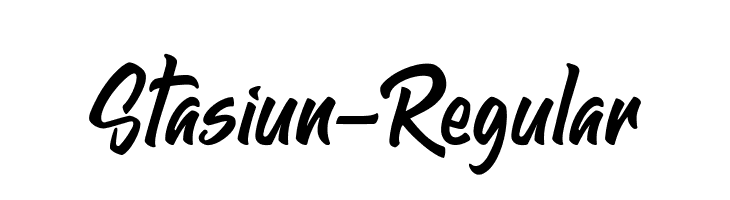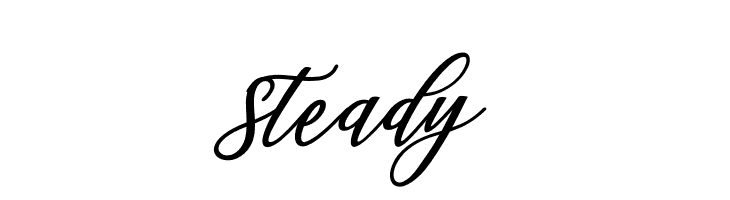
A flowing, elegant cursive font with smooth, continuous strokes.
A bold, playful script font with flowing, cursive letters and a whimsical aesthetic.
A bold, modern script font with dynamic, flowing strokes.
A playful and flowing script font with elegant curves and continuous strokes.
A sophisticated, elegant handwritten script with fluid, connected letters.
A whimsical, playful script font with flowing, interconnected letters.
A flowing, cursive font with an elegant and sophisticated style.
A cursive, handwritten font with elegant loops and swashes.
A playful, bold handwritten font with rounded, slightly irregular characters.
A lively, cursive script font with interconnected letters and a dynamic style.